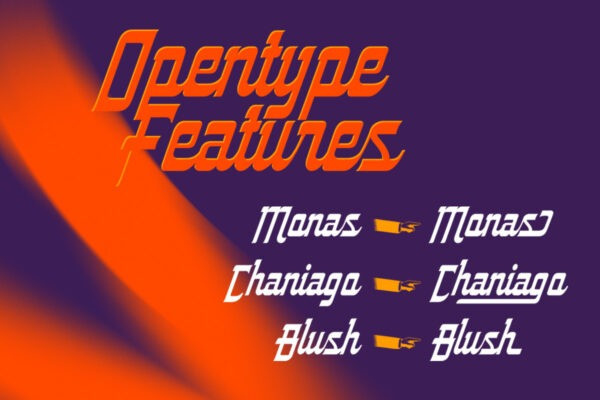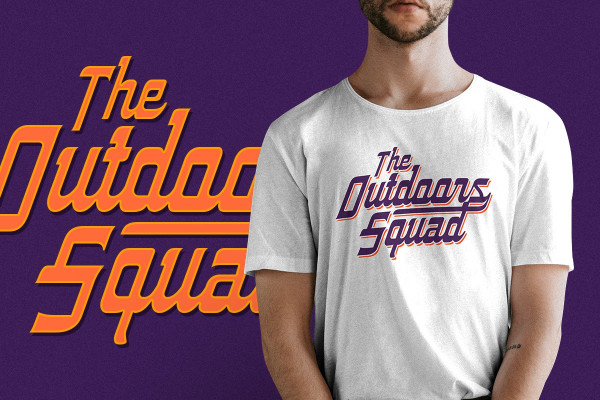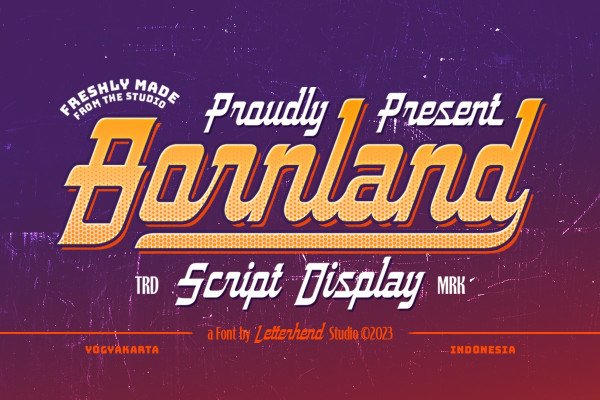
Bornland Font
Bornland Font, a dynamic font that embodies a sporty and urban street art aesthetic. With its bold and energetic script style, this font brings a sense of edgy flair to any design project. Perfect for sports-themed branding, apparel, posters, and urban-inspired designs, Bornland adds a vibrant and expressive touch to capture attention and create a visually captivating experience.